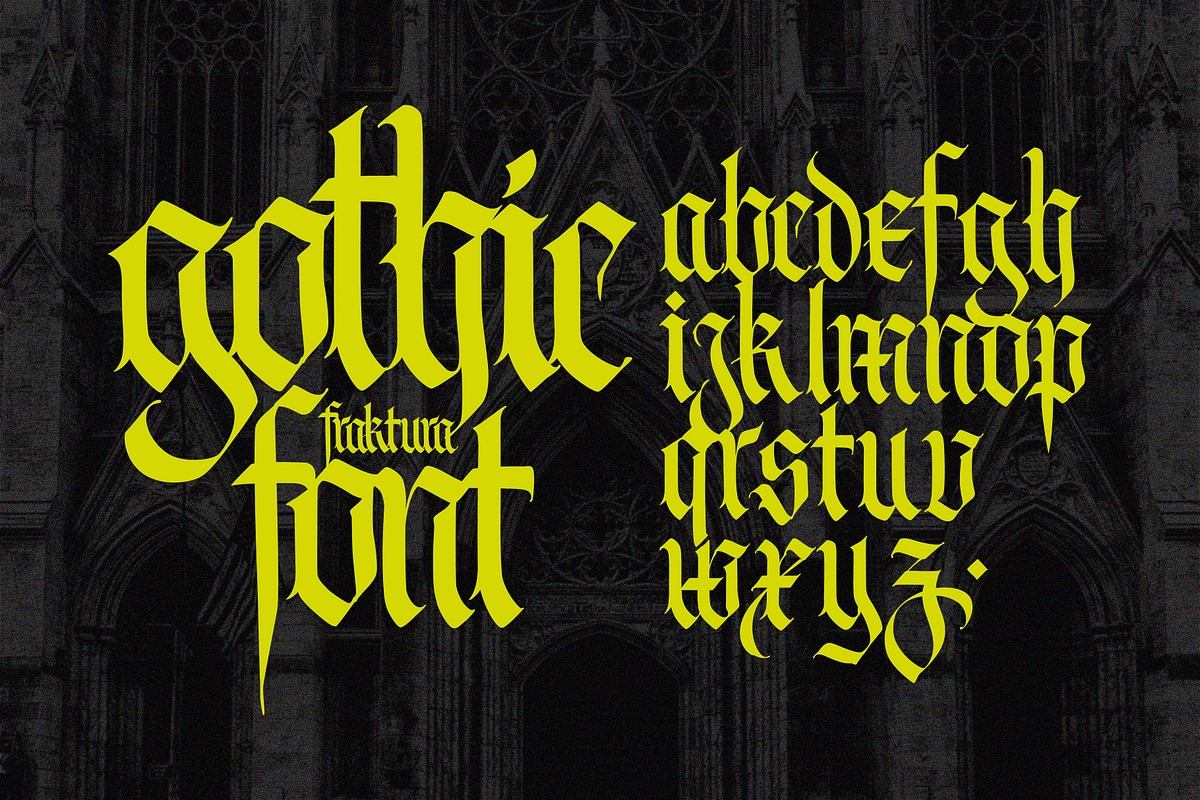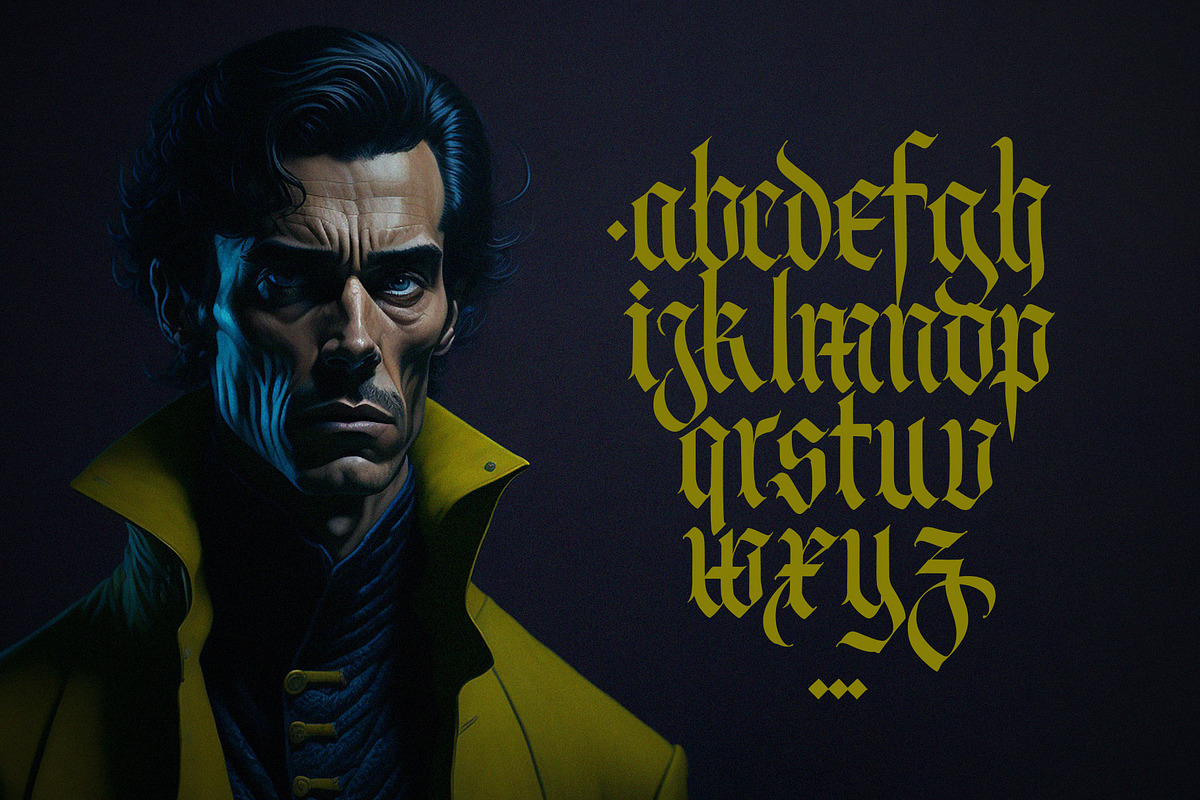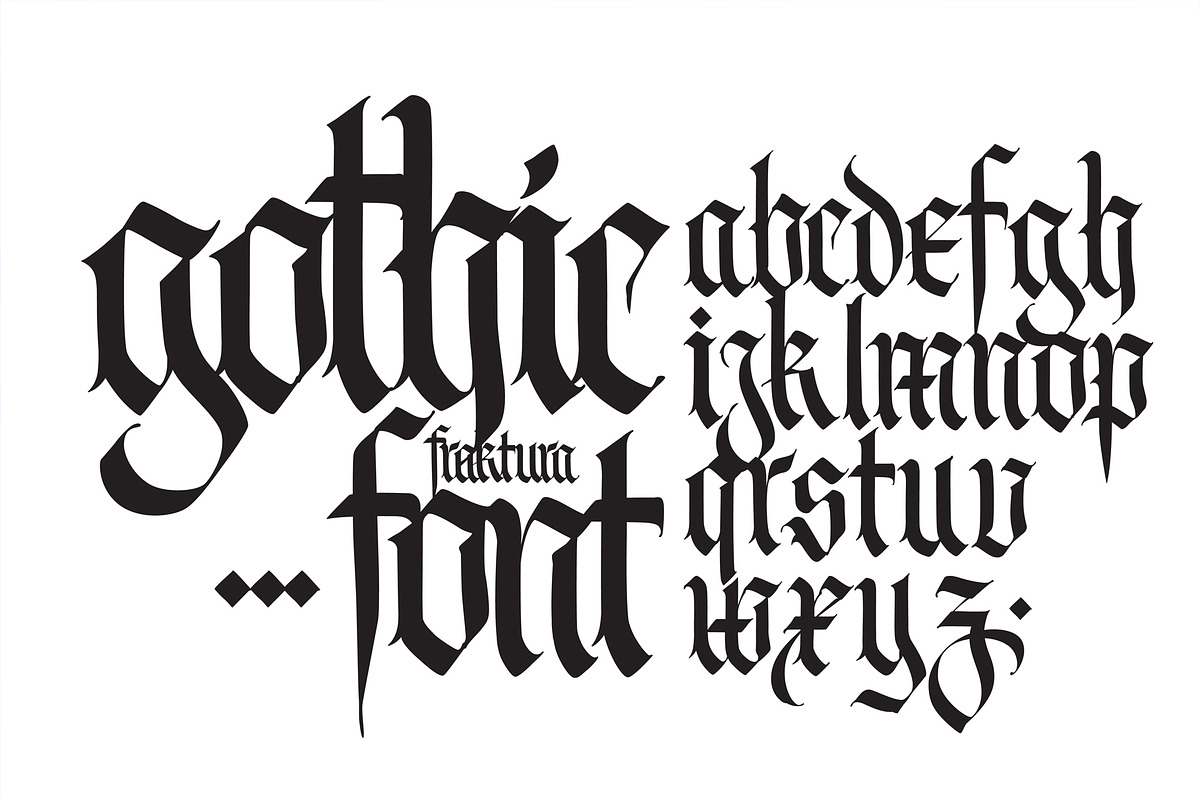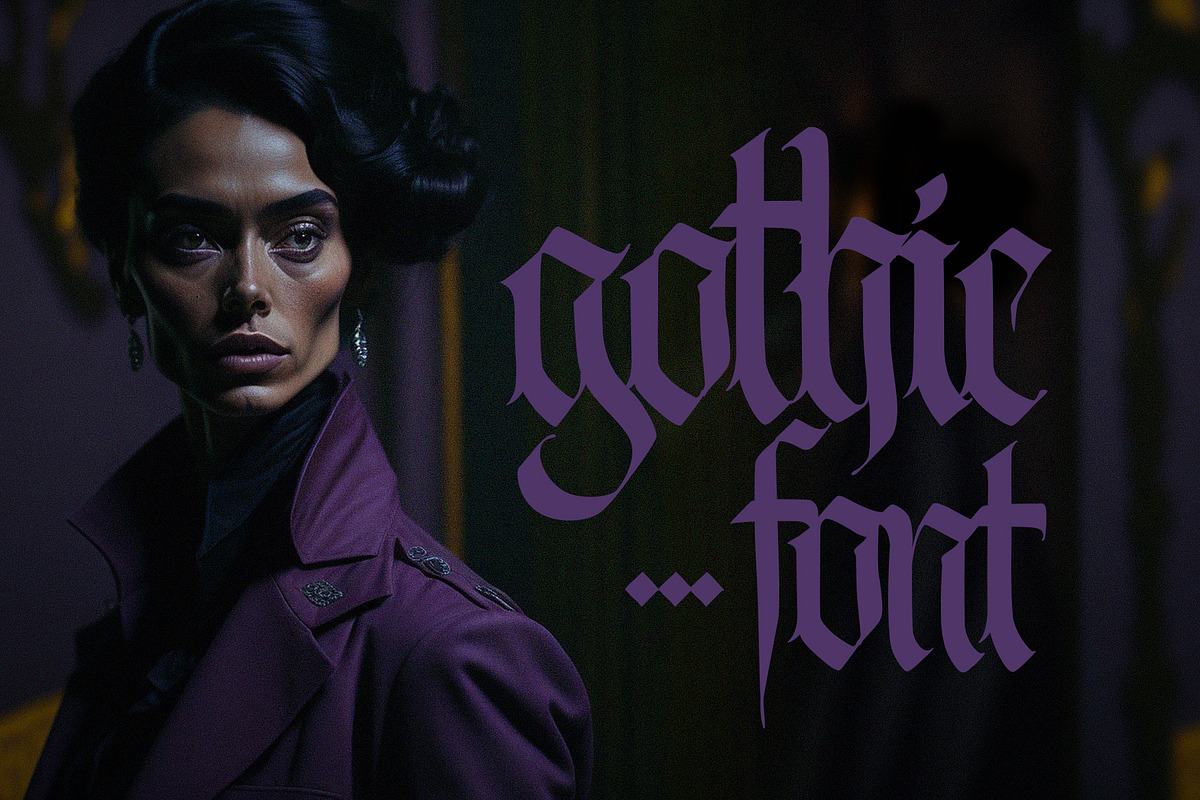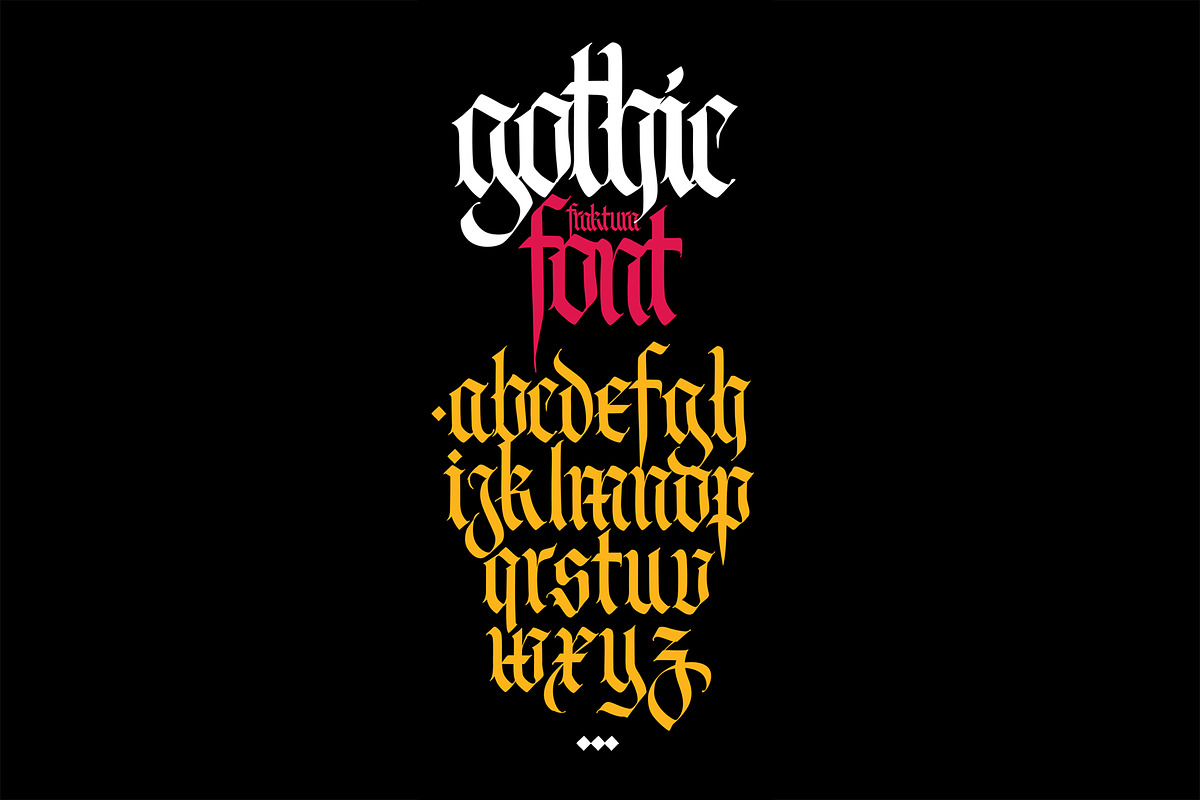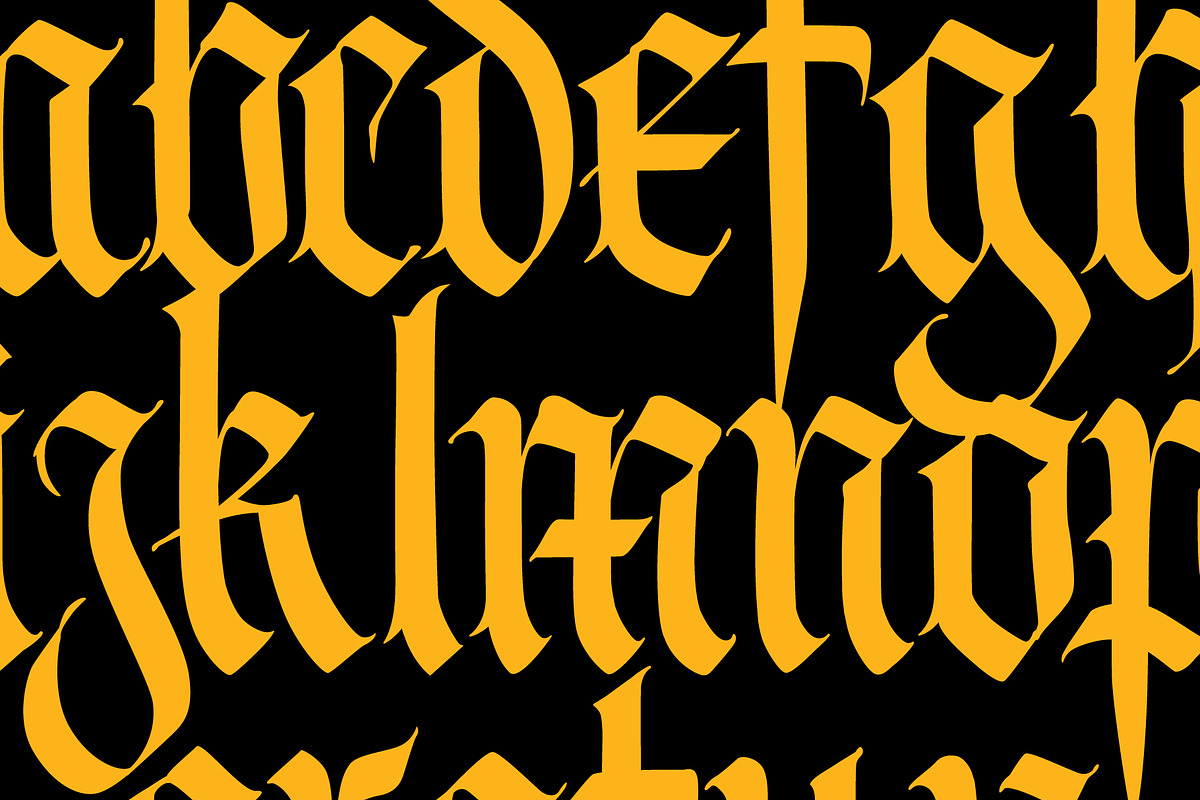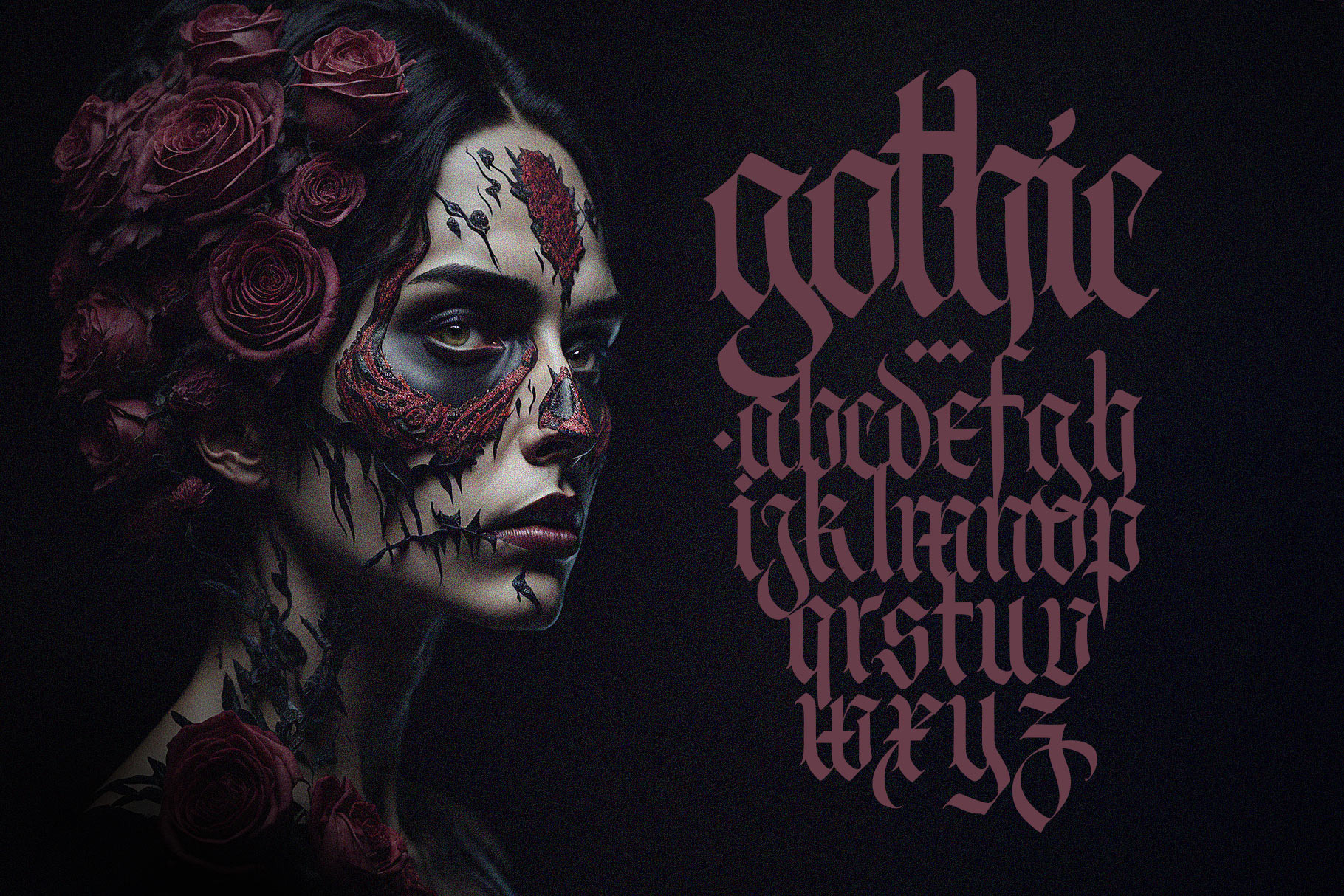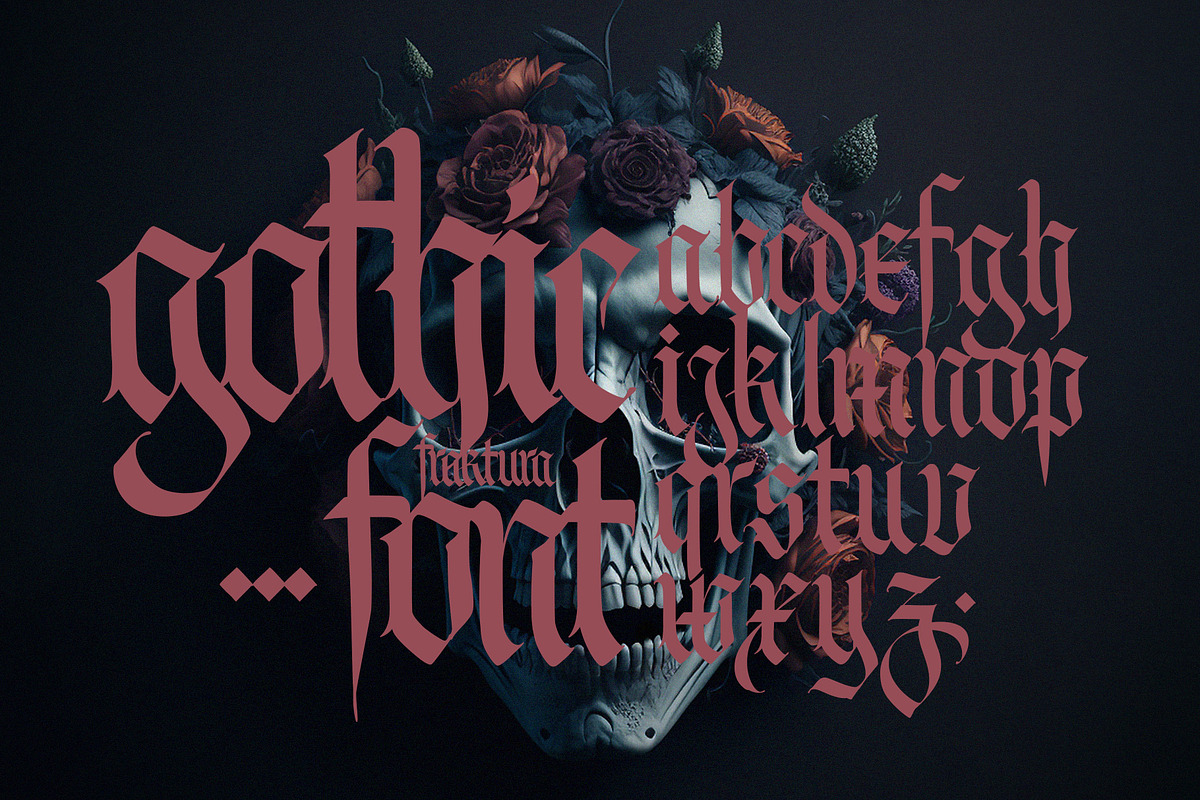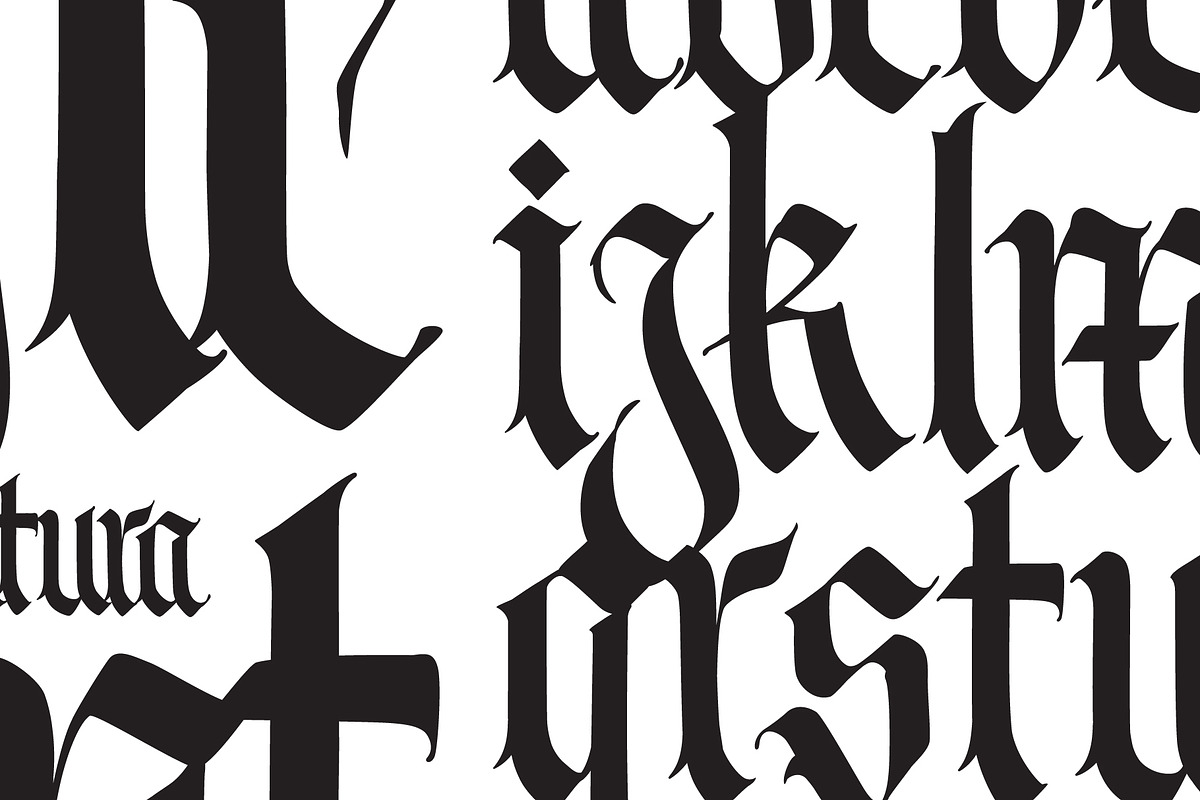
Gothic font 04
Decorative display gothic font consists of lowercase letters only! The archive contains font formats .ttf, .otf, .woff. All symbols are saved in vector format .eps and .jpeg. Also, all letters are saved in separate files.
You can also combine this font with other types of fonts according to your needs. This font is perfect for branding, logo design, cover design, books, magazines, apparel designs, headlines, etc
The font contains only latin letters of the English alphabet. In order to use the beautiful swashes, you need a program that supports OpenType features such as Adobe Illustrator, Adobe Photoshop. In the font, only those letters that you see in the screenshots.